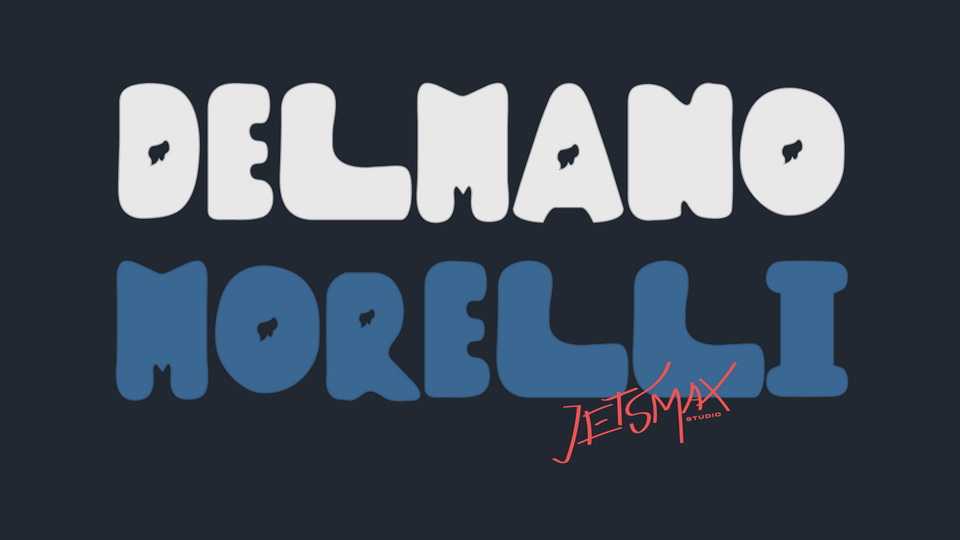
Delmano Morelli Font › Fontesk – Download Grátis
Download Delmano Morelli font, a bold display typeface inspired by a vintage typography from movies in the roaring ’20s. Specially drawn to make any design project look fancy and stylish at the same time.
Designer: Jetsmax Studio